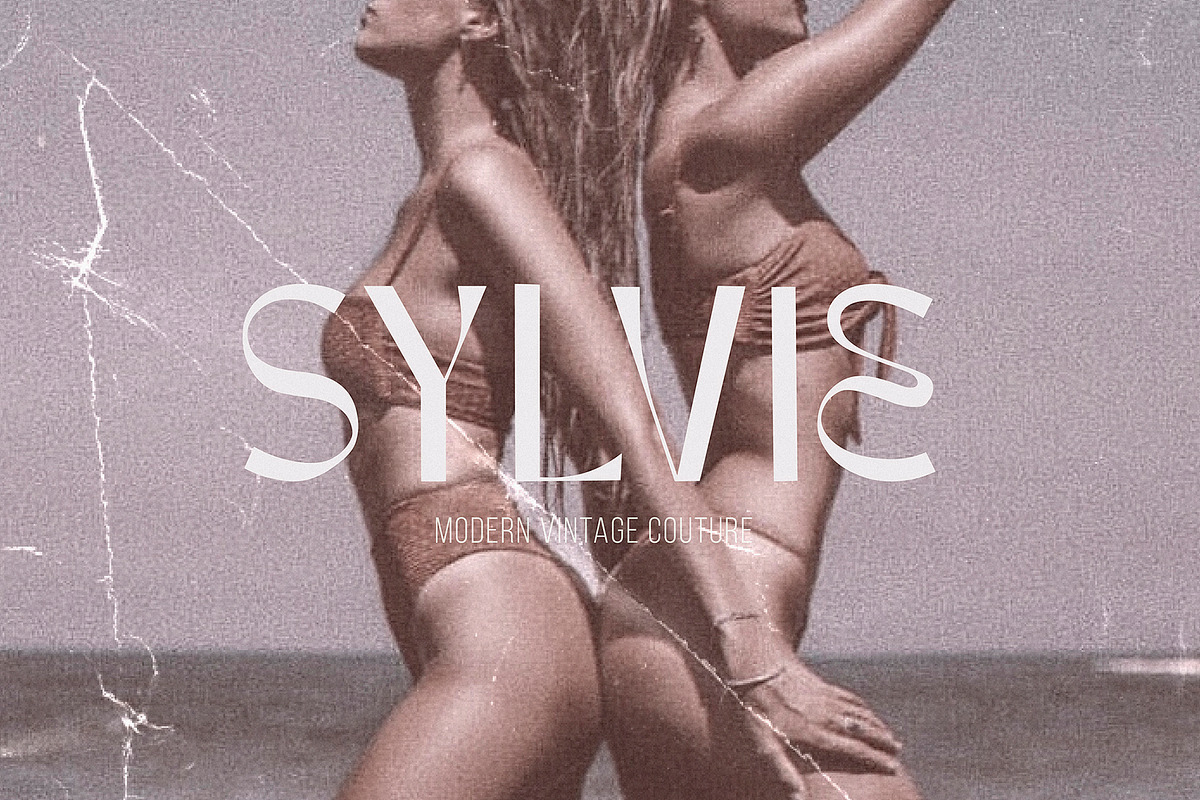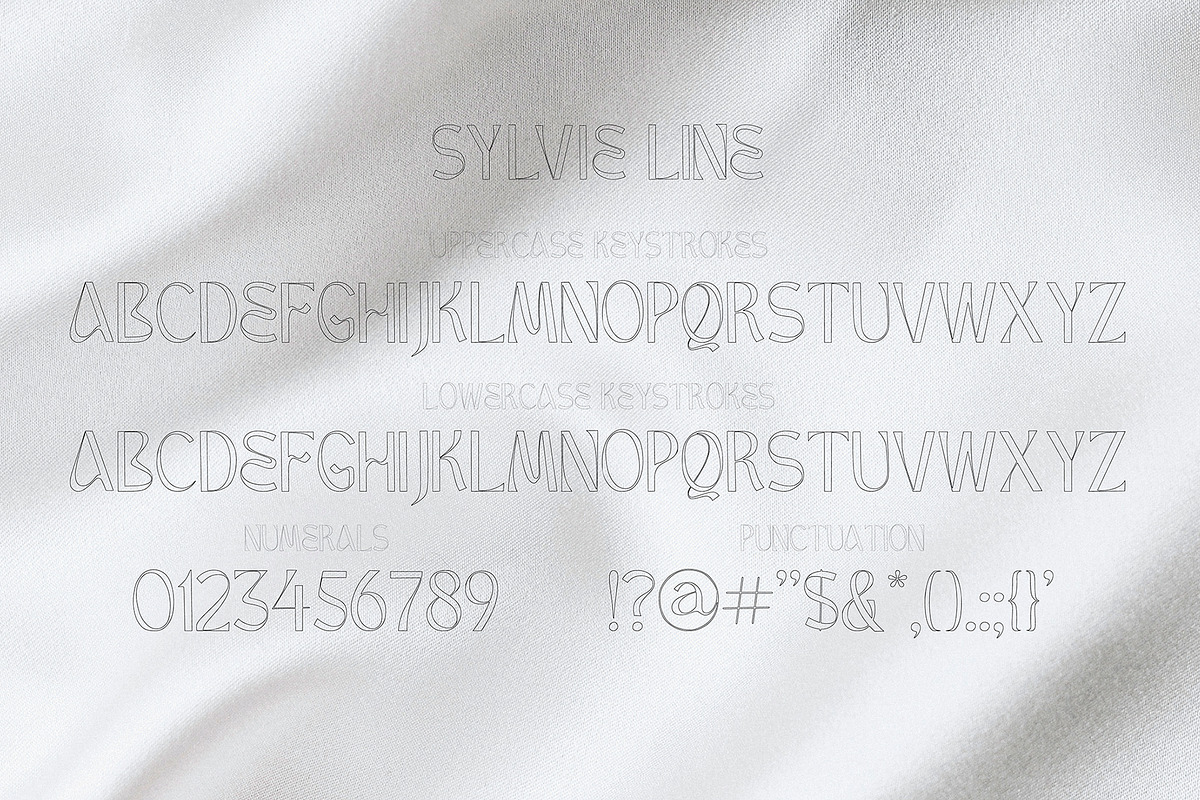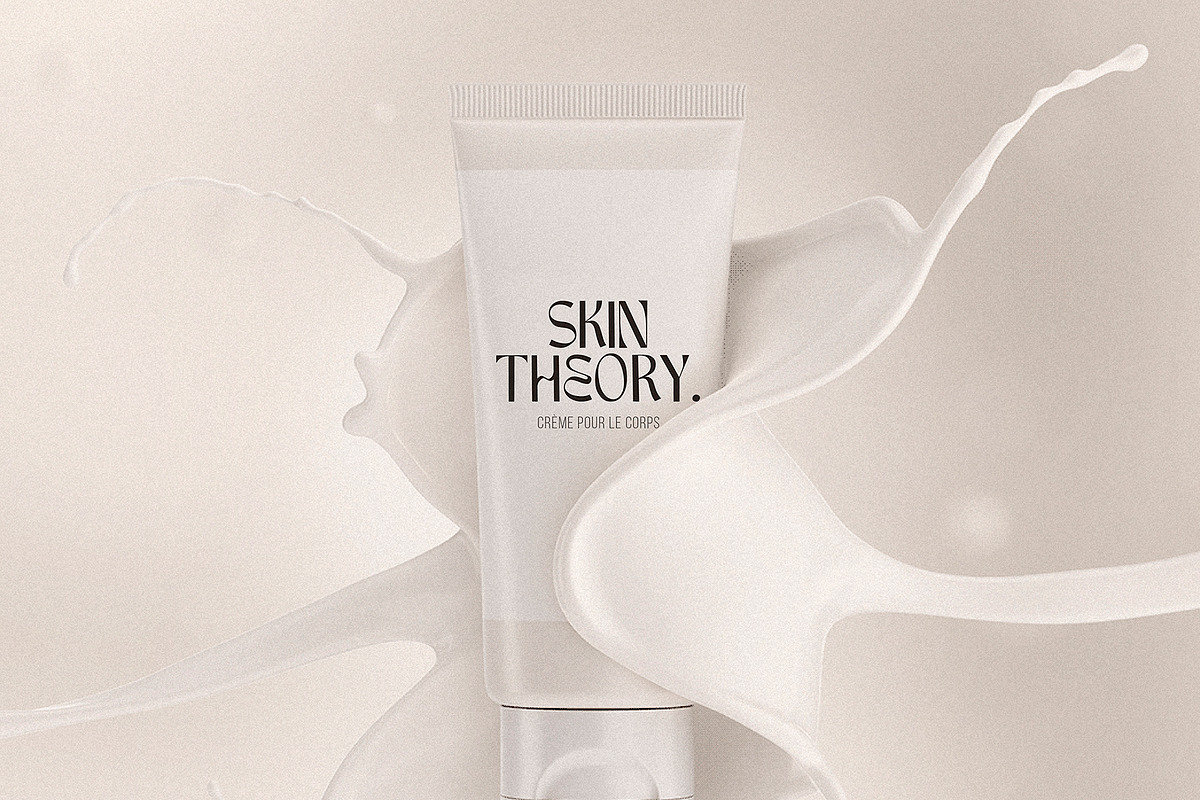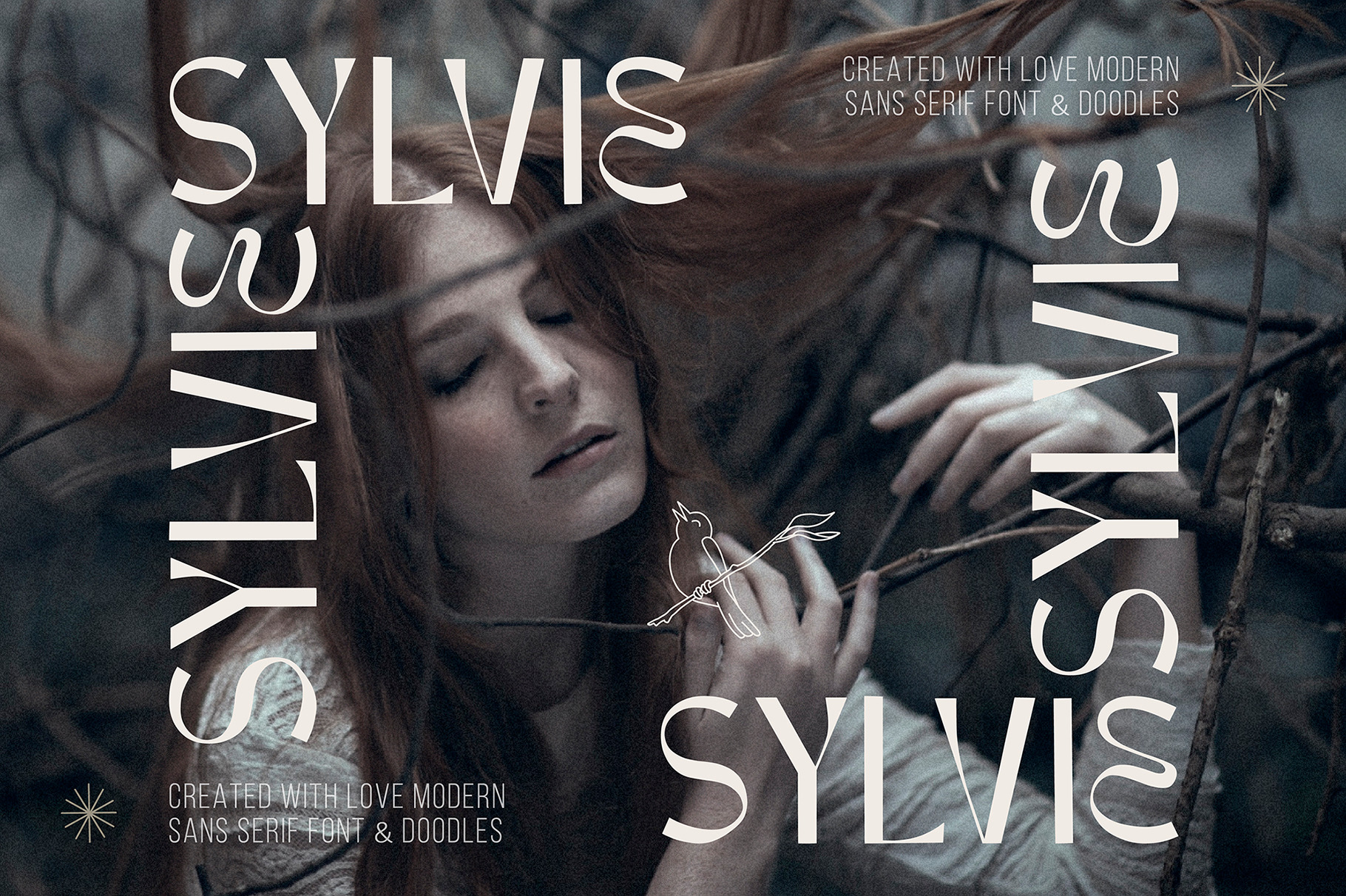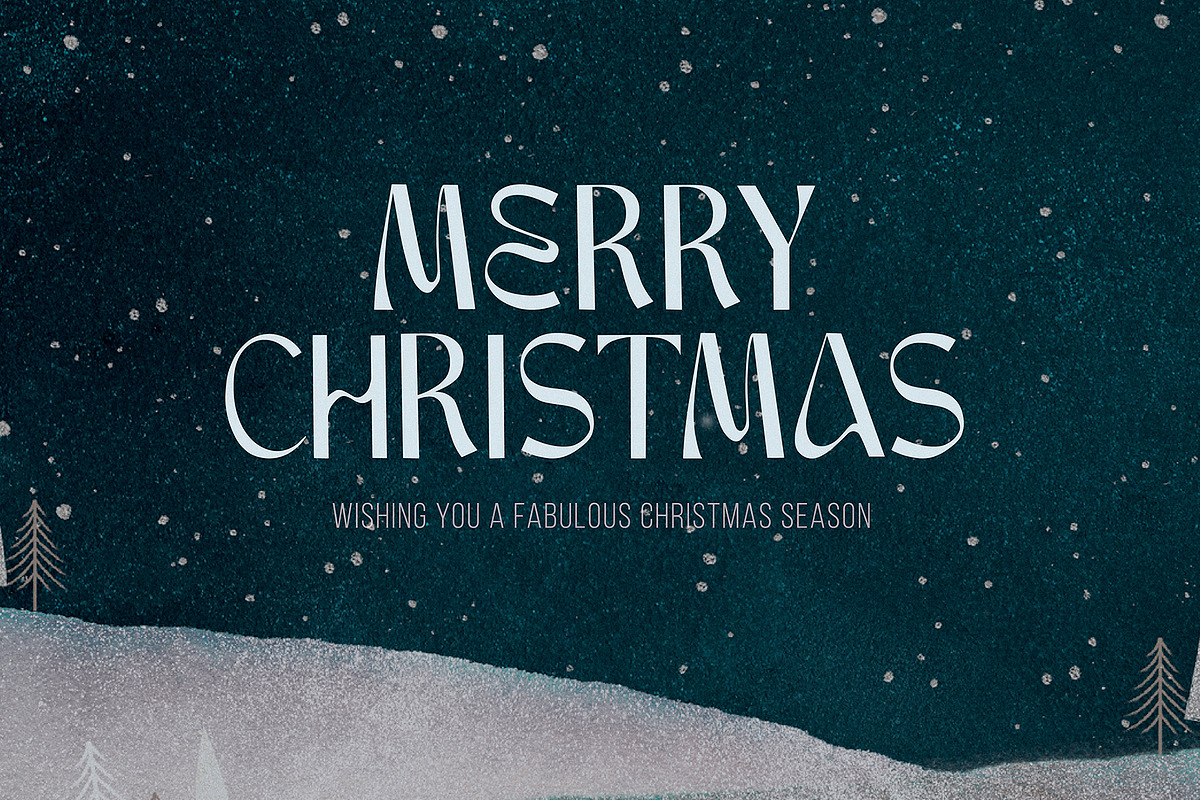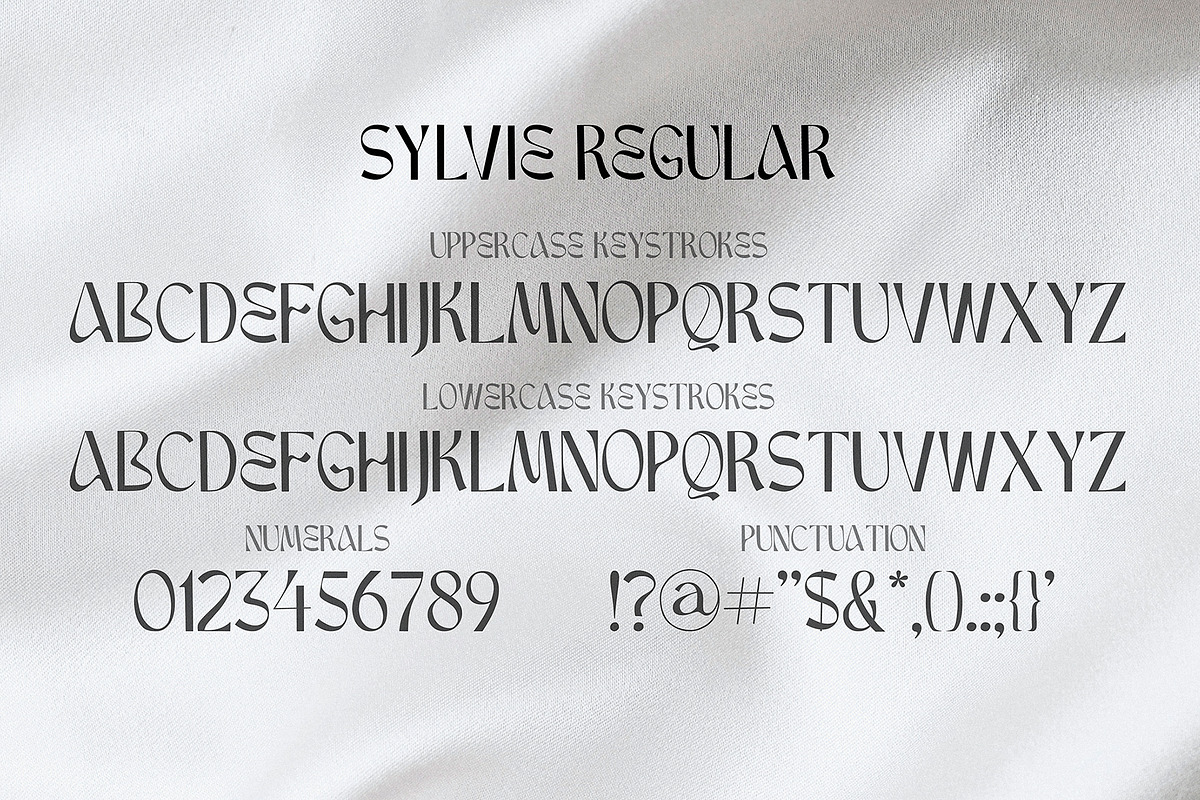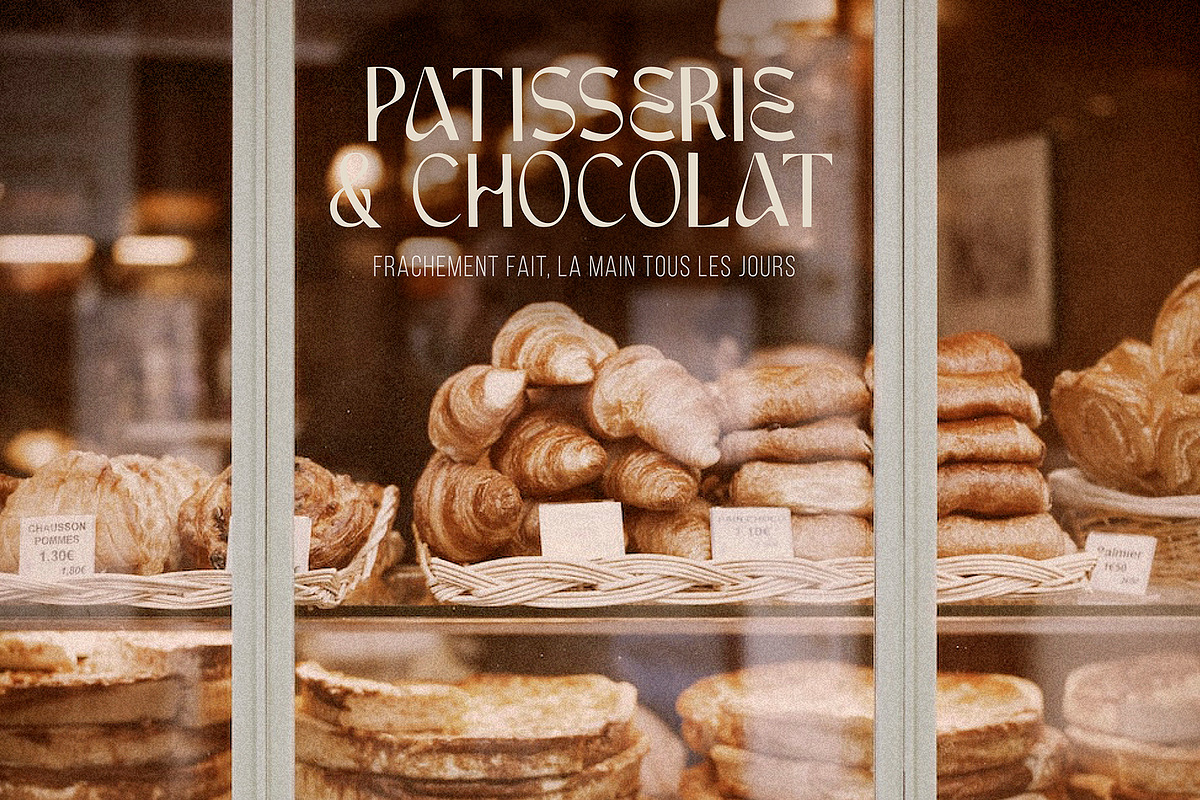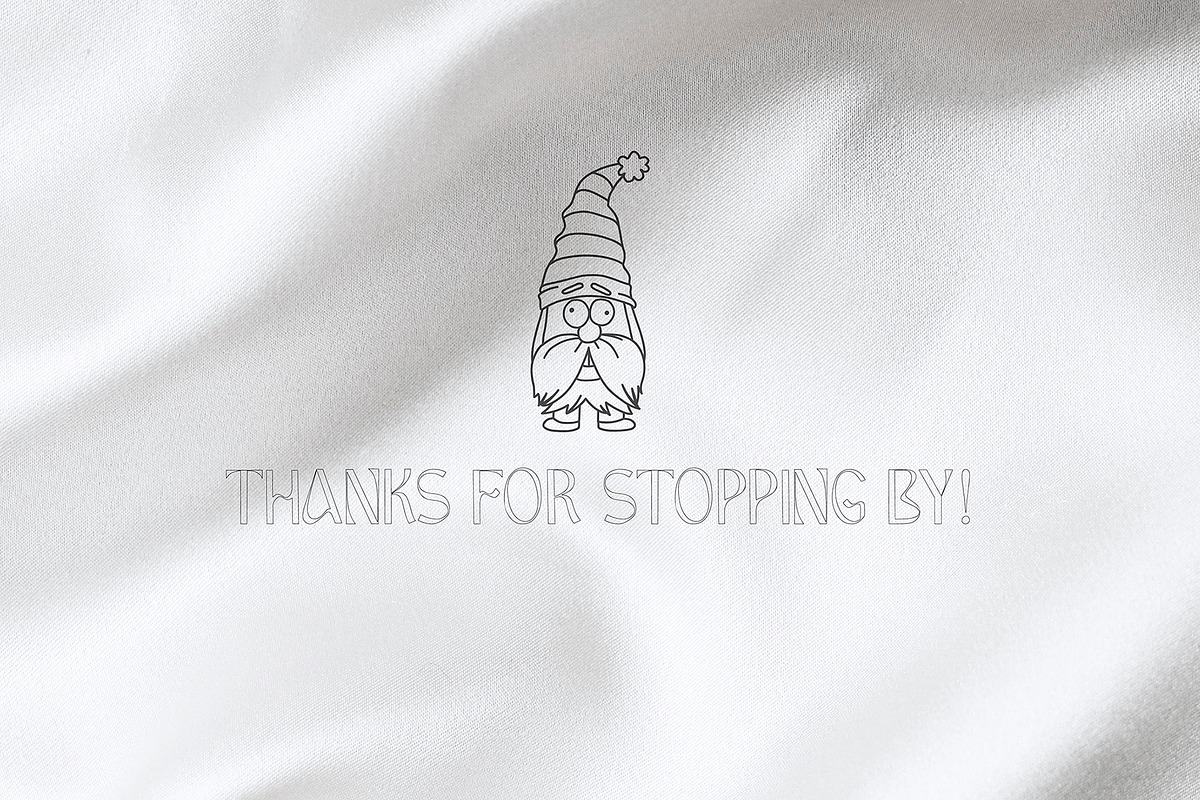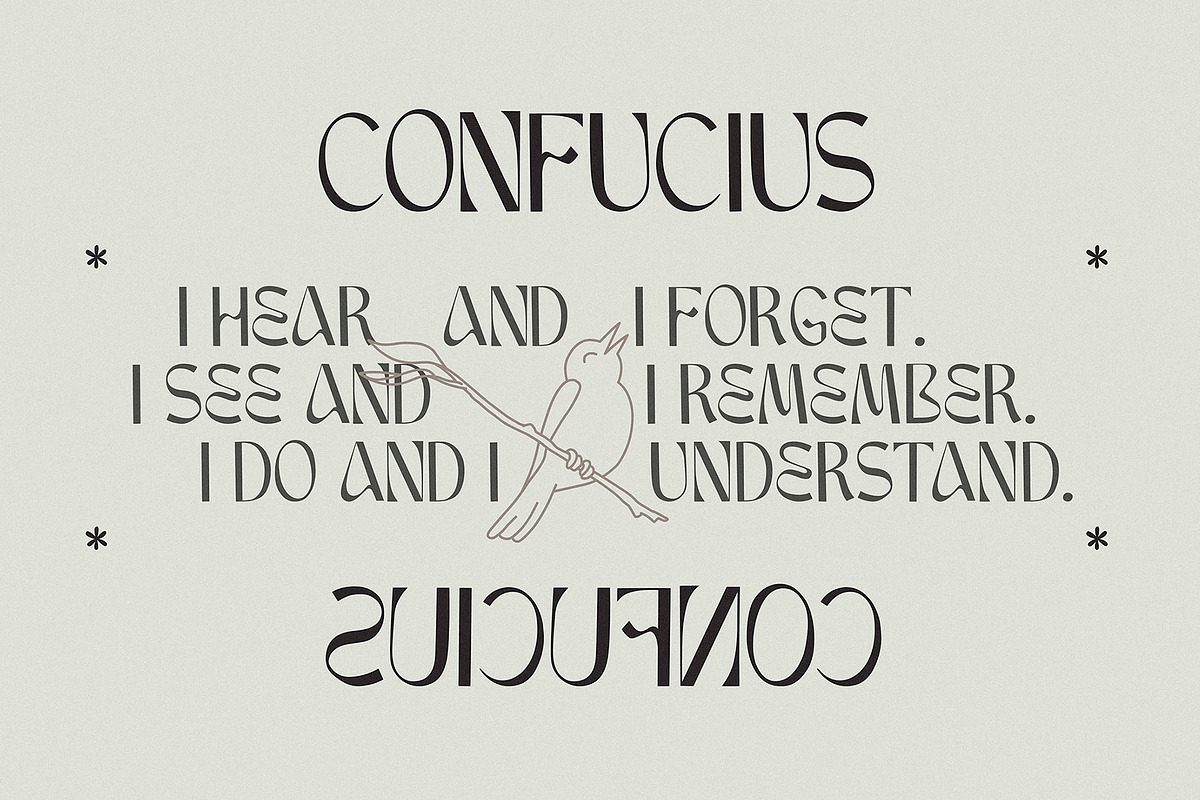
SYLVIE - Chic Display Font
SYLVIE is a very stylish font with letters that seem to dance and harmoniously intertwine with each other, creating a unique and elegant typographic design. This font is in my collection, inspired by France. French architecture, vintage fonts, modern forms, fashion and their unique lifestyle have all had an impact on this font. Thanks to the contrasting lines and curves, it will give your design the chic and modernity that you are looking for. It is perfect for logos, branding, posters, social media and all other creative projects. It will also highlight your brand. SYLVIE will definitely add attractiveness to your design!